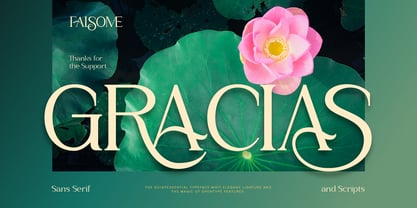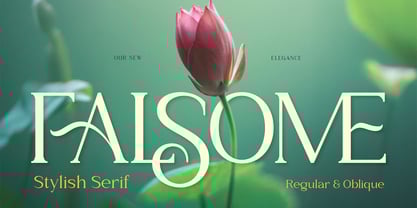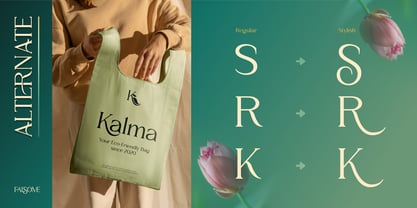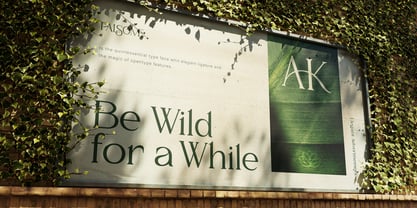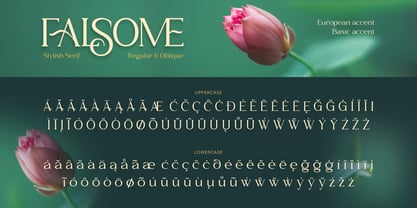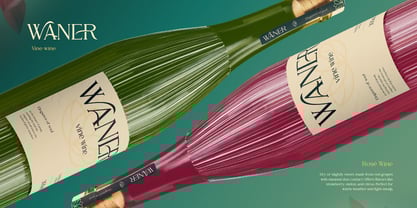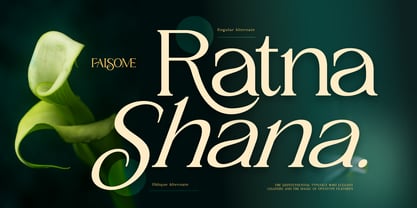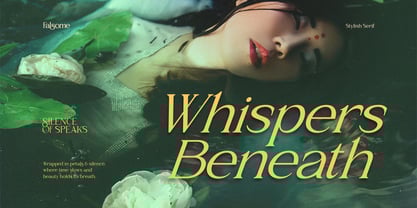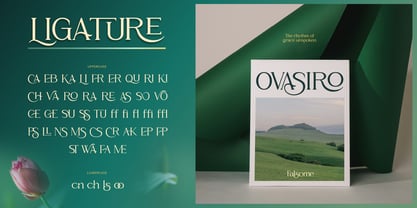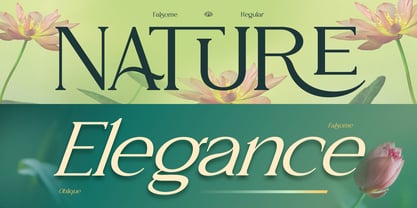
Falsome
by Burntilldead
The Falsome Font Family was designed by Eric Kurniawan and published by Burntilldead. Falsome contains 2 styles and family package options. More about this family
Introducing Falsome, a stylish serif typeface that blends classic charm with modern elegance. Crafted with high attention to detail, with its unique ligatures and alternates. Falsome is the perfect choice for designers who want to create stunning and high-end visuals with 2 styles: regular and oblique. The Regular and Oblique styles make it easy to create dynamic and layered typographic compositions. Falsome gives your typography that extra touch of beauty and refinement. This font is made to elevate any project that needs a stylish, feminine, and timeless look. If you're looking for a font that can bring emotion and beauty into your work while staying versatile and easy to use, Falsome is the one. Whether you're working on a luxurious branding identity, wedding invitations, fashion editorials, or elegant packaging.
Features:
• Uppercase & Lowercase
• Number
• Punctuation
• Alternates
• Ligatures
• Multilingual
Designers: Eric Kurniawan
Foundry: Burntilldead